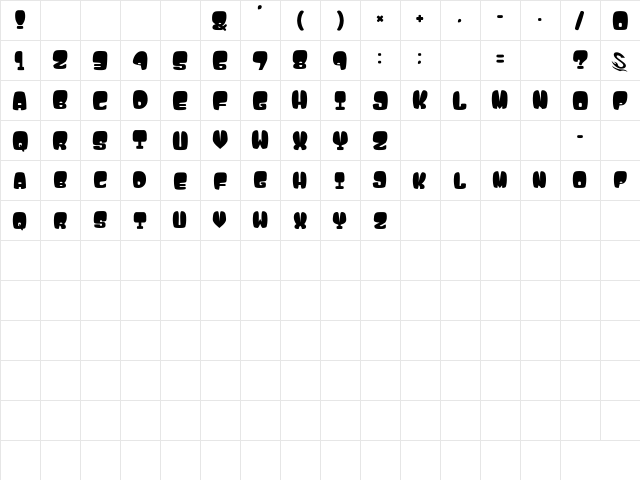
Atama__G Regular Font Preview
Atama__G Regular
Atama__G Regular Font Details
Design Context for Atama__G Typeface
Atama__G is a composed and adaptable typeface that performs quietly and consistently across a wide range of design contexts.